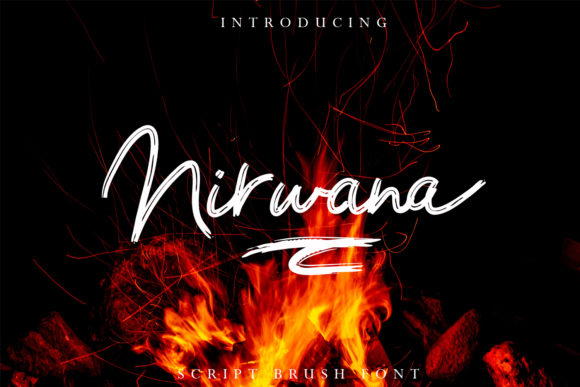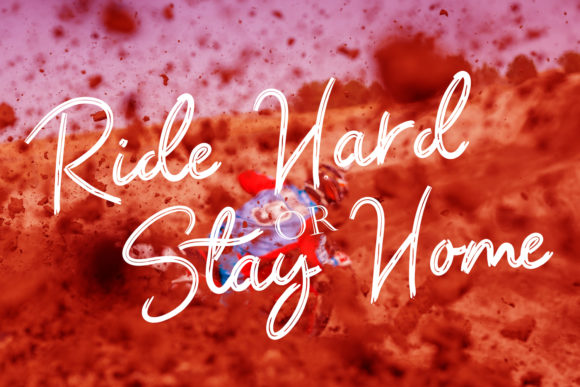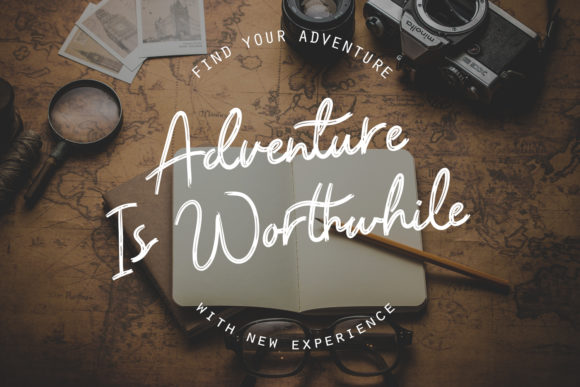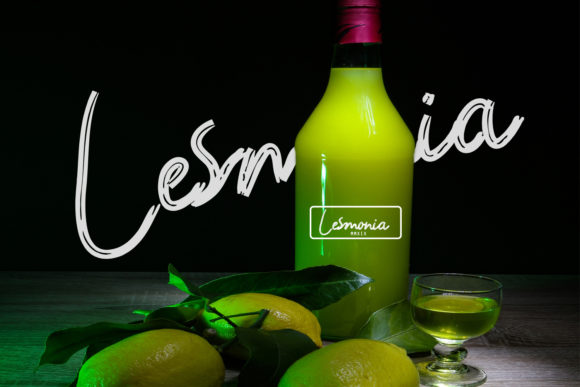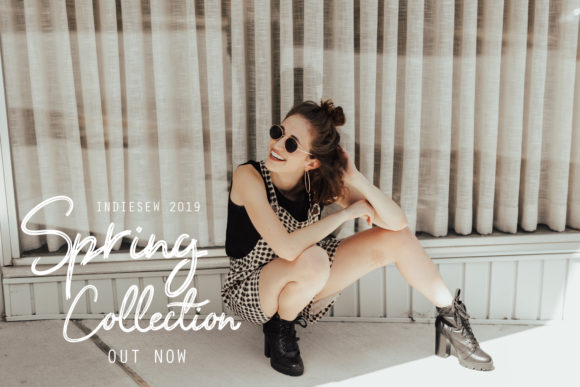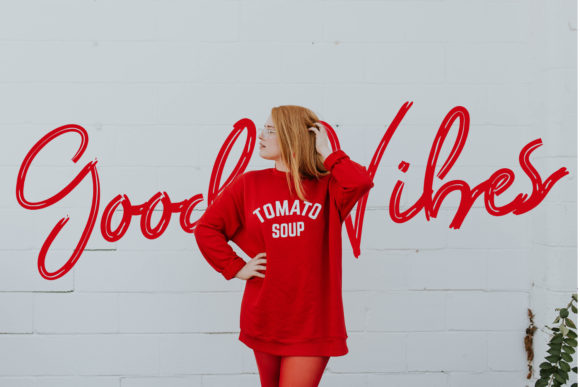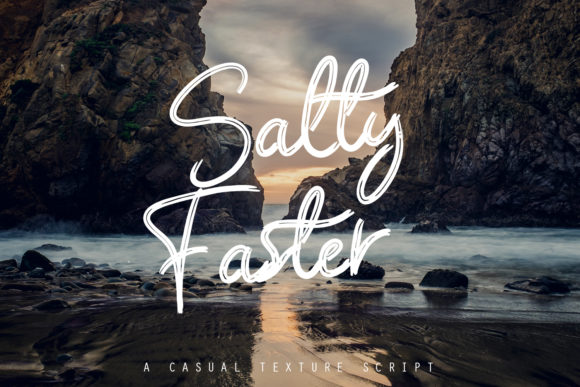
HomeScript FontsNirwana Font Script Fonts Nirwana Font FacebookTwitterPinterestWhatsApp Nirwana Font Poster 2 Nirwana Font Poster 3 Nirwana Font Poster 4 Nirwana Font Poster 5 Nirwana Font Poster 6 Nirwana Font Poster 7 About Nirwana Font Nirwana is a playful and dynamic handwritten font with a unique style. Get inspired by its modern authenticity. DOWNLOAD NOW People also explored Oakblush Font Hello Spring Monogram Font Lilione Font Southlight Font Black Cloud Font Belarisha Font Croshed Font Kerushty Font Nightmare Font 145 0 TagsNirwana Font Previous articleKreature FontNext articleThe Santinora Font LEAVE A REPLY Cancel reply Comment: Please enter your comment! Name:* Please enter your name here Email:* You have entered an incorrect email address! Please enter your email address here Website: Save my name, email, and website in this browser for the next time I comment. Personal Use Free Angola Beach Personal Use Free Read more about this font Broodfath Personal Use Free Read more about this font Equalizer Script Personal Use Free Read more about this font Wondery Personal Use Free Read more about this font BLOG Best Fonts for T-Shirt Design – Top 2025 Picks In 2025, t-shirt design has become more than just fashion—it's a form of self-expression. Whether you're... The 10 Best Handwriting Fonts to Add Personality to Your Designs Transform Your Website: Elevate Your Typography with 7 Best Web Font Generators Best Fonts for YouTube Videos: Make Your Thumbnails Stand Out